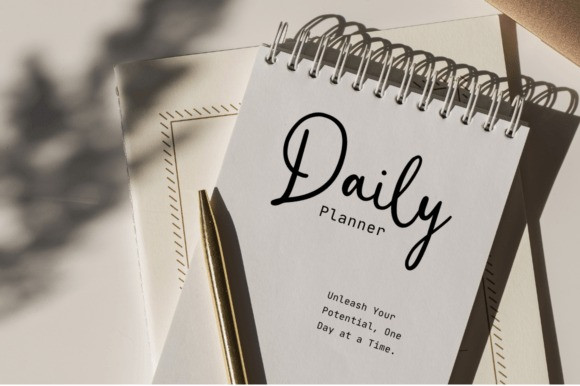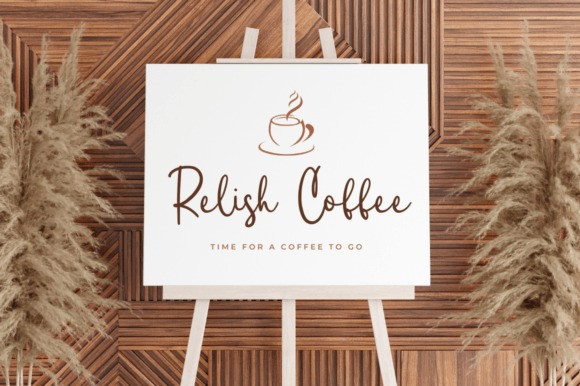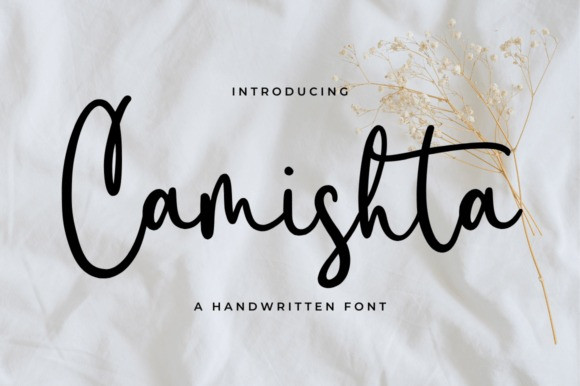
Camishta Handwritten Font
Camishta Handwritten Font the perfect blend of boldness and beauty in a script font! With its captivating curves and confident strokes, this font exudes elegance and charm. Ideal for making a statement with your designs, whether it’s invitations, branding, or social media posts. “Camishta” adds a touch of sophistication and flair to your text, ensuring it stands out beautifully wherever it’s used.